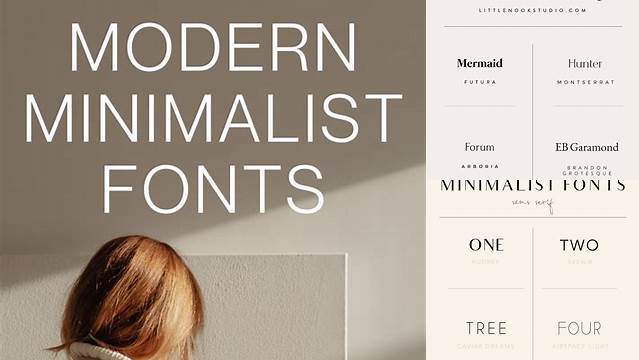
Top Minimalist Fonts For Word: Clean & Modern Styles
Hey guys! Are you looking to give your documents a sleek, modern look? Choosing the right font is key, and minimalist fonts are where it's at. In this article, we're diving deep into the best minimalist fonts you can use in Word to create stunning, easy-to-read documents. Get ready to level up your typography game!
1. Understanding Minimalist Font Design
So, what exactly makes a font "minimalist"? It's all about simplicity and clarity. Think clean lines, unadorned characters, and a focus on readability. Minimalist fonts strip away the unnecessary frills, leaving you with a typeface that's both elegant and functional. When choosing minimalist fonts, consider the overall tone of your document. Are you aiming for a professional, corporate feel? Or something more relaxed and approachable? The right font can set the perfect mood. Also, pay attention to the font's legibility, especially when used in smaller sizes. A beautifully designed font is useless if it's hard to read. Experiment with different fonts and sizes to find the sweet spot for your content. Remember, minimalist fonts aren't just about aesthetics; they're about enhancing the reading experience. By choosing wisely, you can create documents that are both visually appealing and easy to digest. Trust me, your readers will thank you for it!
2. Why Choose Minimalist Fonts in Word?
Why should you even bother with minimalist fonts in Word? Well, for starters, they bring a sense of sophistication and modernity to your documents. In a world saturated with visual clutter, a minimalist font can help your message stand out by being clean and straightforward. Using minimalist fonts can also improve readability, especially in large blocks of text. Their simple designs reduce eye strain, making it easier for your audience to focus on the content. Plus, minimalist fonts are incredibly versatile. They work well in a variety of contexts, from business reports and academic papers to creative writing and personal correspondence. This adaptability makes them a great choice for anyone who wants a reliable, go-to font. Choosing minimalist fonts also helps to create a unified brand. By using the same font across all your documents, you can establish a consistent visual identity that reinforces your message. Ultimately, the goal is to make your documents look polished, professional, and easy to understand. Minimalist fonts can help you achieve all of that and more. So, next time you're working on a Word document, give them a try – you might be surprised at the difference they can make!
3. Popular Minimalist Sans-Serif Fonts
When it comes to minimalist fonts, sans-serif typefaces are often the go-to choice. These fonts are characterized by their lack of serifs – the small decorative strokes at the end of letterforms. This gives them a clean, modern look that's perfect for a variety of applications. Some popular minimalist sans-serif fonts include Helvetica, Arial, and Futura. Helvetica is a classic choice that's known for its neutrality and versatility. It's a great option for body text, headings, and everything in between. Arial is another widely used font that's similar to Helvetica but with slightly softer edges. Futura, on the other hand, has a more geometric design that gives it a distinctively modern feel. When choosing a minimalist sans-serif font, consider the overall tone you want to convey. Are you aiming for a professional, corporate look? Or something more casual and approachable? The right font can help you achieve the desired effect. Also, pay attention to the font's legibility, especially when used in smaller sizes. A beautifully designed font is useless if it's hard to read. Experiment with different fonts and sizes to find the perfect combination for your content. Remember, the goal is to create documents that are both visually appealing and easy to digest. Minimalist sans-serif fonts can help you do just that. So, explore your options and find the font that best suits your needs.
4. Elegant Minimalist Serif Fonts
While sans-serif fonts often steal the spotlight in the minimalist world, serif fonts can also offer a touch of elegance and sophistication. Serif fonts are characterized by the small decorative strokes (serifs) at the end of letterforms, which can add a sense of tradition and formality. Some excellent minimalist serif fonts include Garamond, Times New Roman, and Palatino. Garamond is a timeless classic that exudes elegance and refinement, making it perfect for formal documents, books, and invitations. Times New Roman is another widely used serif font that's known for its readability and versatility. It's a solid choice for body text and headings alike. Palatino offers a slightly more modern take on the serif font, with a more open and airy design. When selecting minimalist serif fonts, consider the context in which you'll be using them. Are you creating a formal business proposal or a personal letter? The right serif font can help you set the tone and convey the appropriate level of formality. Also, pay attention to the font's weight and spacing. A font that's too heavy or too tightly spaced can be difficult to read, while a font that's too light or too widely spaced can look weak and insubstantial. Experiment with different combinations until you find the perfect balance. Ultimately, the goal is to choose a minimalist serif font that enhances your message without being distracting. With a little careful consideration, you can find the perfect serif font to elevate your documents to the next level.
5. Best Minimalist Fonts for Resumes
Your resume is your first impression, so you want to make it count! Choosing the best minimalist fonts for your resume is crucial to ensure it looks professional, clean, and easy to read. After all, you want recruiters to focus on your qualifications, not struggle to decipher your font. Some top contenders for minimalist resume fonts include Helvetica, Arial, and Calibri. These sans-serif fonts offer a sleek, modern aesthetic that's perfect for showcasing your skills and experience. They are also highly legible, ensuring that your resume is easy to scan and understand. Another excellent option is Garamond, a classic serif font that exudes elegance and sophistication. While it's a bit more traditional than sans-serif fonts, Garamond can add a touch of refinement to your resume without sacrificing readability. When selecting minimalist fonts for your resume, avoid anything too fancy or decorative. Stick to clean, simple typefaces that are easy on the eyes. Also, be mindful of font size. Aim for a font size of 11 or 12 points for body text, and use a slightly larger font size for headings and subheadings. This will help create a clear visual hierarchy and make your resume more scannable. Remember, your resume is a reflection of your personal brand. By choosing minimalist fonts, you can convey a sense of professionalism, competence, and attention to detail. So, take the time to select the right font – it could make all the difference in landing your dream job!
6. Minimalist Fonts for Website Design
Minimalist fonts aren't just for documents; they're also a popular choice for website design. A clean, minimalist font can help create a modern and user-friendly website that's easy on the eyes. When selecting minimalist fonts for your website, consider the overall tone and style of your brand. Are you going for a sleek and sophisticated look, or something more casual and approachable? The right font can help you convey the desired message. Some popular minimalist fonts for websites include Open Sans, Lato, and Roboto. These sans-serif fonts are known for their readability and versatility, making them great choices for body text, headings, and navigation menus. They're also optimized for web use, ensuring that they look crisp and clear on a variety of devices. Another excellent option is Montserrat, a geometric sans-serif font that's both modern and stylish. It's a great choice for headlines and calls to action. When using minimalist fonts on your website, be sure to pay attention to font size, line height, and letter spacing. These factors can have a big impact on readability. Also, consider using a font pairing tool to find complementary fonts that work well together. Ultimately, the goal is to create a website that's both visually appealing and easy to navigate. By choosing minimalist fonts and optimizing your typography, you can create a website that engages your audience and helps you achieve your business goals.
7. Combining Minimalist Fonts Effectively
One of the keys to great typography is knowing how to combine minimalist fonts effectively. Using a single font throughout your entire document or website can feel monotonous, but mixing too many fonts can create a cluttered and unprofessional look. The sweet spot is usually to combine two or three minimalist fonts that complement each other. A common approach is to pair a sans-serif font with a serif font. For example, you might use Open Sans for body text and Playfair Display for headings. This creates a nice contrast that's both visually appealing and easy to read. When combining minimalist fonts, pay attention to the font's weight, size, and spacing. You want to create a visual hierarchy that guides the reader's eye and makes your content easy to scan. For example, you might use a heavier font weight for headings to make them stand out, and a lighter font weight for body text to improve readability. It's also important to choose fonts that share similar characteristics, such as x-height or letter width. This will help create a sense of visual harmony and prevent your typography from looking disjointed. Experiment with different combinations until you find something that works well for your brand and your content. Remember, the goal is to create typography that's both visually appealing and easy to read. By combining minimalist fonts effectively, you can achieve that goal and create documents and websites that stand out from the crowd.
8. Minimalist Fonts for Print vs. Digital
Choosing minimalist fonts requires a slightly different approach depending on whether you're designing for print or digital media. Fonts that look great on paper may not always translate well to the screen, and vice versa. For print, you generally have more flexibility in terms of font choice. You can use fonts with finer details and more intricate designs, as they will be rendered clearly on the printed page. However, for digital media, you need to choose minimalist fonts that are optimized for screen display. This means selecting fonts with clean, simple shapes that are easy to read at various screen sizes and resolutions. Sans-serif fonts are often a good choice for digital media, as they tend to render more clearly on screens than serif fonts. Also, be sure to test your minimalist fonts on different devices and browsers to ensure that they look consistent across platforms. Font rendering can vary depending on the operating system and browser, so it's important to check your typography on a variety of devices before you finalize your design. Another important consideration is file size. Using too many fonts or fonts that are too large can slow down your website or increase the size of your print files. Optimize your minimalist fonts for the medium you're using to ensure that your designs are both visually appealing and efficient. Ultimately, the key is to choose fonts that are appropriate for the medium and that enhance the readability of your content.
9. Free Minimalist Fonts vs. Premium Options
When it comes to minimalist fonts, you have two main options: free fonts and premium fonts. Free fonts can be a great way to save money, especially if you're on a tight budget. However, they often come with limitations in terms of quality, features, and licensing. Premium fonts, on the other hand, typically offer higher quality designs, more extensive character sets, and broader licensing options. They may also come with additional features, such as multiple weights and styles, which can give you more flexibility in your designs. When choosing between free and premium minimalist fonts, consider the scope and scale of your project. If you're working on a small, personal project, a free font may be perfectly adequate. However, if you're working on a large, commercial project, investing in a premium font may be worth the cost. Also, be sure to carefully review the licensing terms of any font you use, whether it's free or premium. Some fonts may have restrictions on how you can use them, such as limitations on commercial use or modification. By understanding the differences between free and premium minimalist fonts, you can make an informed decision that's right for your project and your budget. Remember, the goal is to choose fonts that enhance your designs and help you achieve your creative goals.
10. Font Licensing: What You Need to Know
Font licensing is an important but often overlooked aspect of typography. Before you start using any minimalist font, it's crucial to understand the terms of its license. Font licenses dictate how you can use the font, whether it's for personal or commercial projects, and whether you can modify or distribute the font. Many free fonts come with licenses that restrict commercial use or modification. This means that you can use them for personal projects, but you can't use them to create designs that you sell or profit from. Premium minimalist fonts typically come with more permissive licenses, but it's still important to read the fine print. Some licenses may restrict the number of users who can use the font, or the number of devices on which it can be installed. It's also important to understand the difference between desktop licenses and web licenses. Desktop licenses allow you to use the font in print and graphic design projects, while web licenses allow you to use the font on websites. If you're planning to use a minimalist font in both print and web projects, you'll need to purchase both a desktop license and a web license. By understanding font licensing, you can avoid legal issues and ensure that you're using fonts in a way that's ethical and compliant. Remember, it's always better to be safe than sorry when it comes to font licensing. So, take the time to read the license agreement and make sure you understand the terms before you start using the font. Minimalist fonts are a great way to enhance your designs, but it's important to use them responsibly.